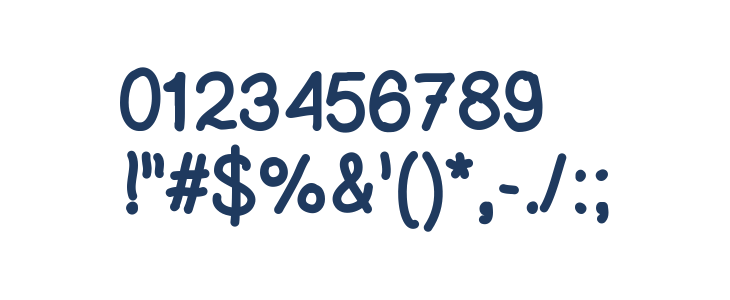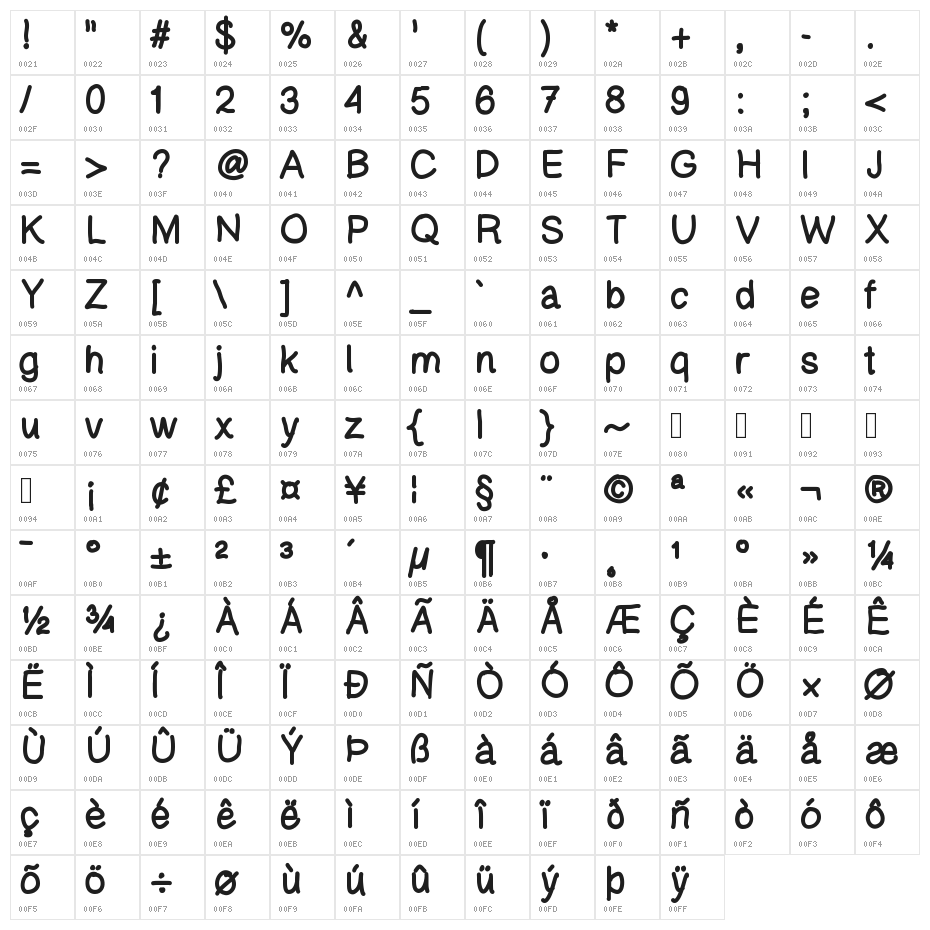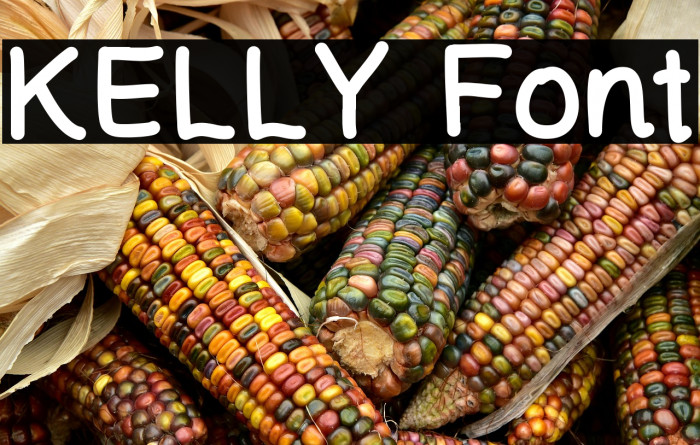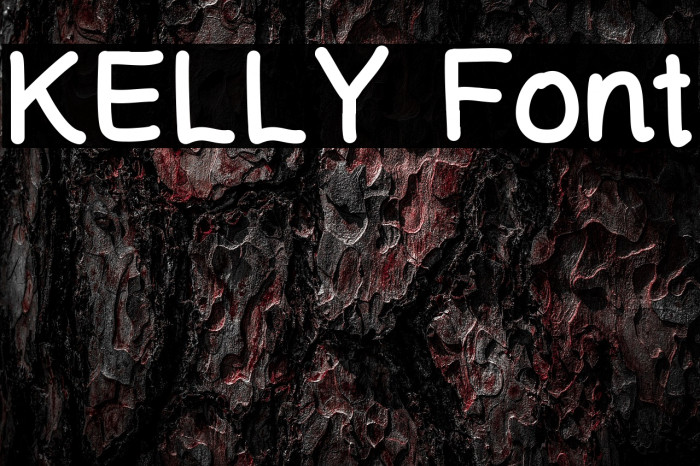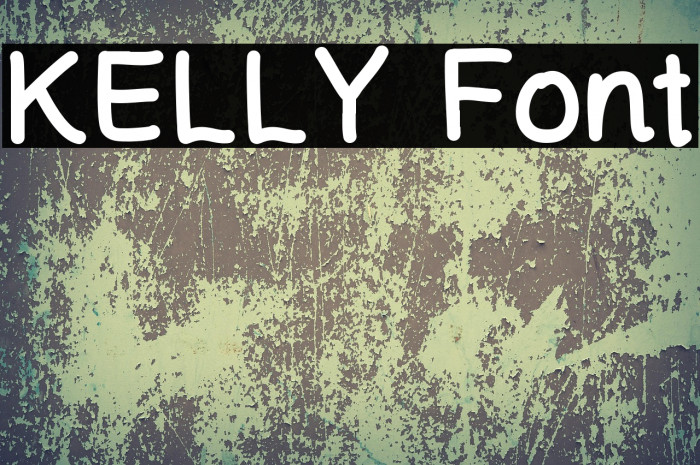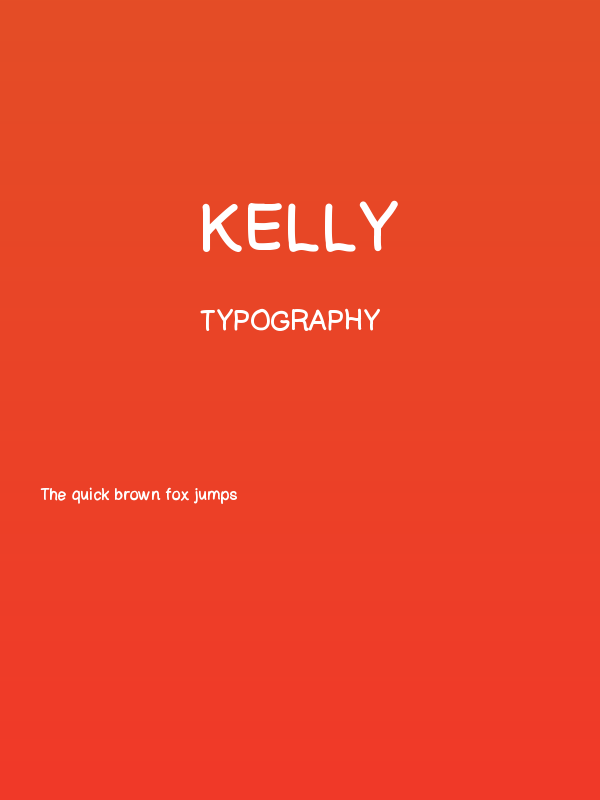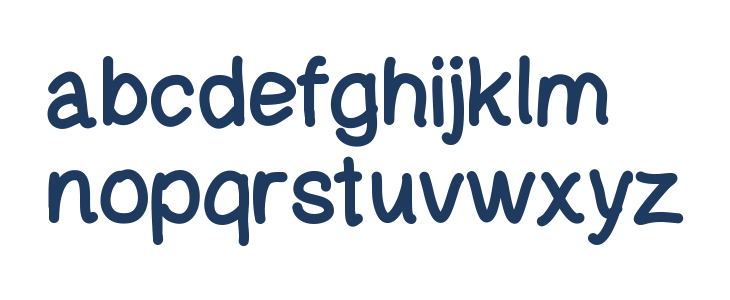
KELLY Font
KELLY Description
This playful and rounded font features a casual, handwritten style that exudes warmth and friendliness. The characters are bold and slightly irregular, giving them a unique, organic feel. The uppercase and lowercase letters maintain a consistent flow, while the numerals and special characters complement the overall design with their rounded edges and smooth curves. This font is perfect for projects that require a personal touch or a fun, approachable aesthetic.
| Proposed Projects | Ideal for children's books, greeting cards, playful branding, and informal invitations. |